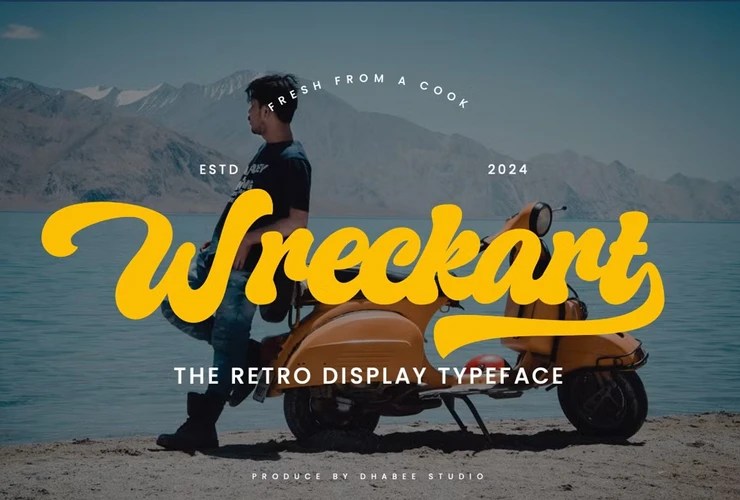
Wreckart: The Retro Display Font with a Modern Twist
Wreckart is a retro display font that seamlessly blends vintage charm with modern elegance. Designed by habibie.habibie1532, this font stands out with its delicate, elegant, and flowing handwritten style. It’s not just a typeface; it’s an artistic statement that adds a unique flair to any design project.
Elegant and Versatile Design
Wreckart is characterized by its beautifully crafted ligatures and subtle swirly details, creating a font that is both sophisticated and expressive. Its elegant flow makes it perfect for a wide range of creative applications. Whether you’re designing a magazine title, a poster, or a wedding invitation, Wreckart brings a touch of class and uniqueness to your work. The font includes uppercase and lowercase letters, numbers, punctuation, alternate characters, and multilingual support, making it versatile enough for any project.
This retro display font is ideal for various purposes, from business cards and logos to book covers and Instagram story posts. Its unique style ensures that your design stands out, whether it’s for a t-shirt design, a greeting card, or a quote. Wreckart’s ability to adapt to different mediums makes it a valuable addition to any designer’s toolkit.
Elegant and Flowing Design: Perfect for adding a sophisticated touch to any project.
Versatile Use: Suitable for a wide range of applications, from posters to wedding invitations.
Comprehensive Support: Includes alternate characters, ligatures, and multilingual support.